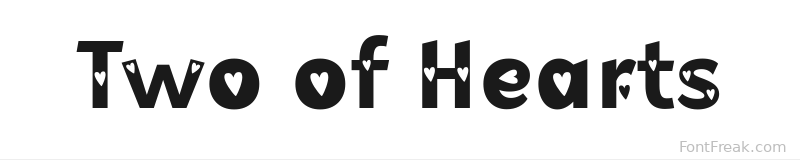
Two of Hearts
The "Two of Hearts" font by Misti Hammers is a decorative typeface that infuses a playful and romantic vibe into any design project. This unique font features a bold display style, characterized by its rounded forms and whimsical heart accents, creating an inviting and cheerful aesthetic. The stroke weight is consistent, giving it a sturdy presence, while the heart motifs cleverly integrated into the letterforms add a touch of charm and creativity. The spacing is well-balanced, ensuring readability without sacrificing its playful nature.
This font is particularly suited for a range of specific applications. It shines in wedding invitations, where its romantic flair can set the perfect tone for a special occasion. Additionally, it works beautifully on greeting cards, making heartfelt messages stand out. For those in the restaurant business, "Two of Hearts" can elevate menus with its fun and engaging style, appealing to a clientele looking for a cozy dining experience. Furthermore, this font can be utilized in social media graphics, capturing the attention of audiences with its eye-catching design.
What truly sets the "Two of Hearts" font apart is its ability to blend playfulness with elegance. The heart accents not only enhance its visual appeal but also evoke emotions, making it a perfect choice for conveying love and warmth in any design. For those looking to explore its unique charm, the Two of Hearts font free download is an opportunity not to be missed.